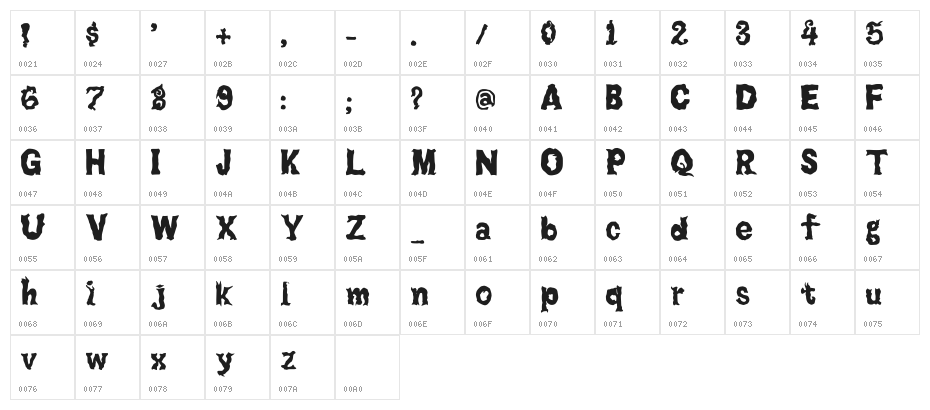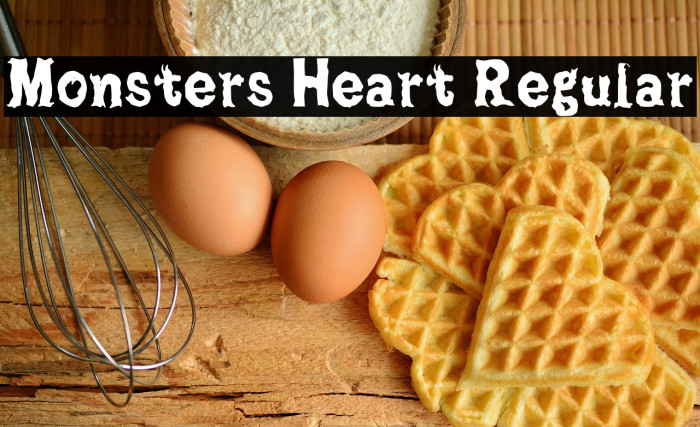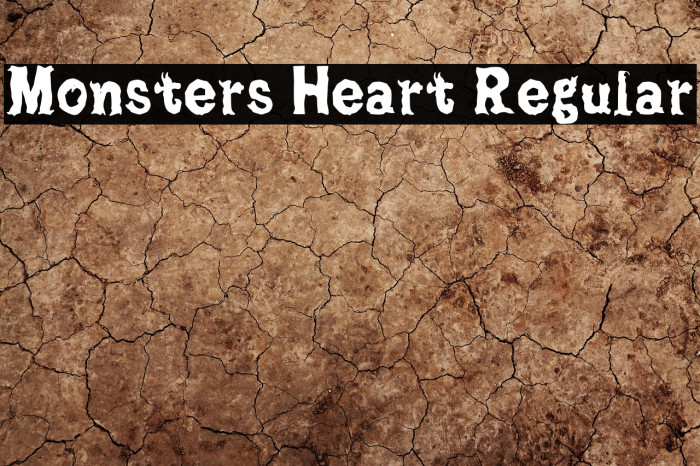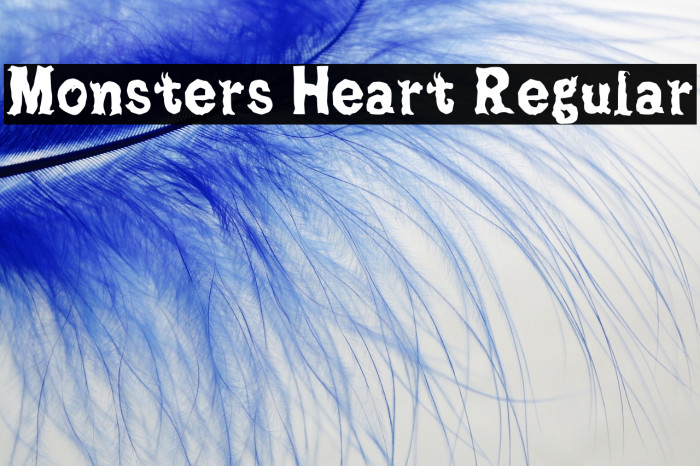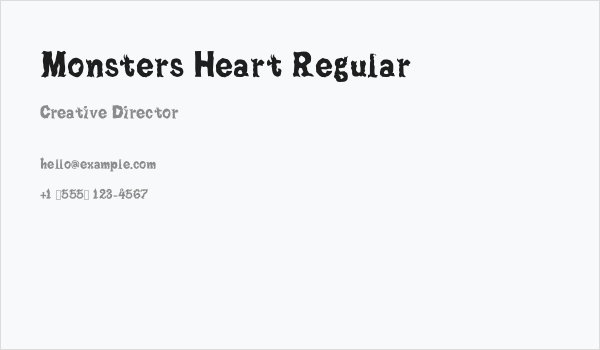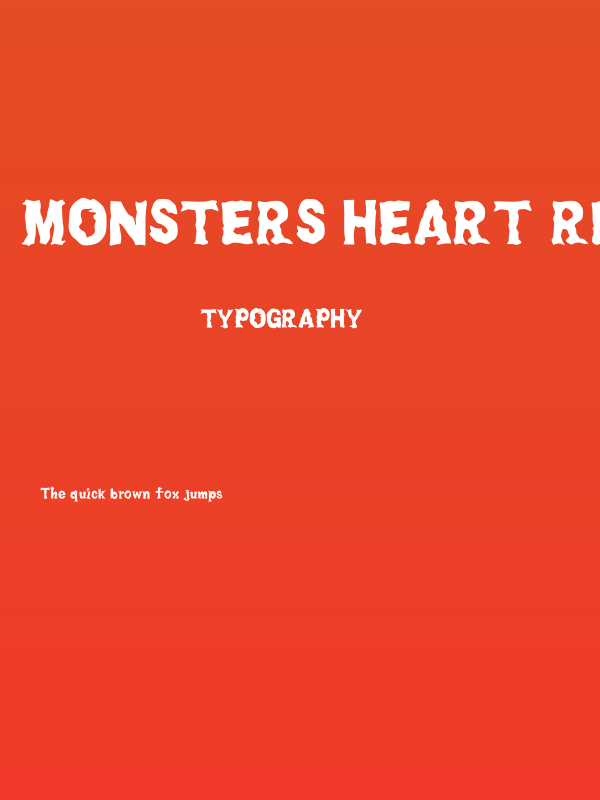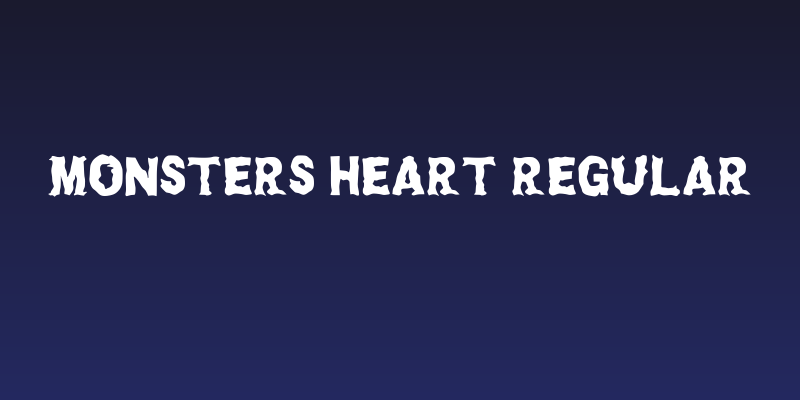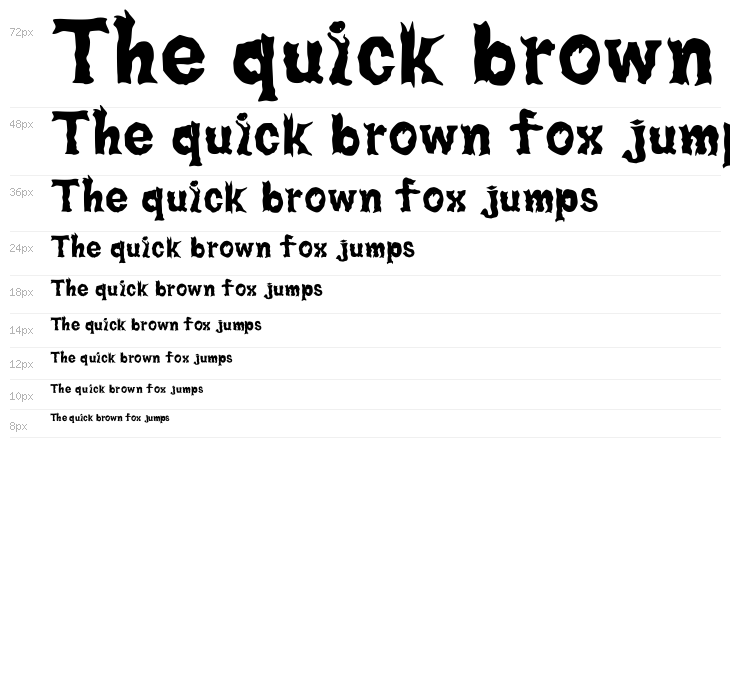
Monsters Heart Regular Font
Monsters Heart Regular Description
This font features a bold and playful design with a distinctly spooky and monstrous aesthetic. The characters are irregular and jagged, resembling torn paper or claw marks, which gives it a unique and eye-catching appearance. The uppercase and lowercase letters maintain a consistent style, with exaggerated curves and sharp edges that add to its dramatic flair. Numbers and special characters follow the same theme, ensuring a cohesive look across all text elements. This font is ideal for creating a sense of horror or fantasy, making it perfect for Halloween-themed projects or anything requiring a touch of the macabre.
| Proposed Projects | Ideal for Halloween invitations, horror movie posters, themed party decorations, and spooky merchandise designs. |